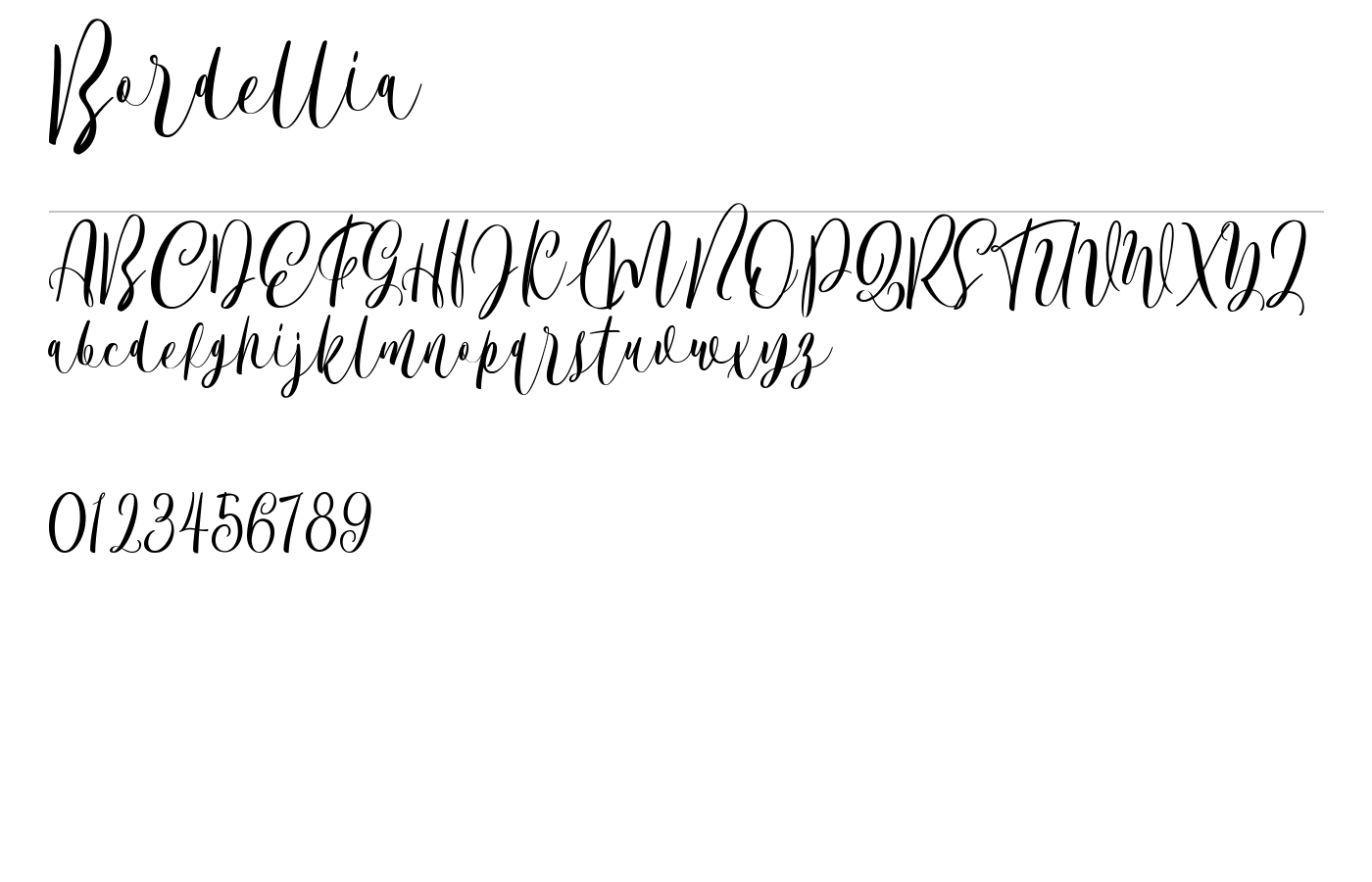
Bordellia is a stylish script font featuring elegant, flowing letterforms with a lively, handwritten feel. Its varying stroke widths and intricate swashes create a sophisticated and artistic vibe, perfect for luxury branding, invitations, and creative headlines where a touch of refinement and personality is desired. This font shines in contexts that need an artistic, feminine, and graceful look.
Bordellia Font
About Bordellia Font
| Font family | Bordellia Font |
| Designer | Angin Studio |